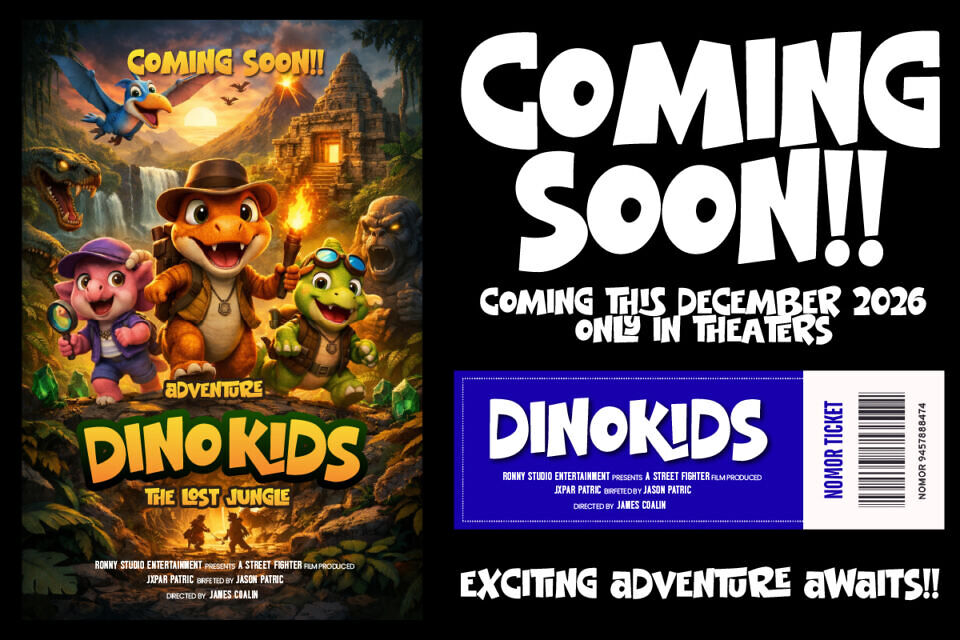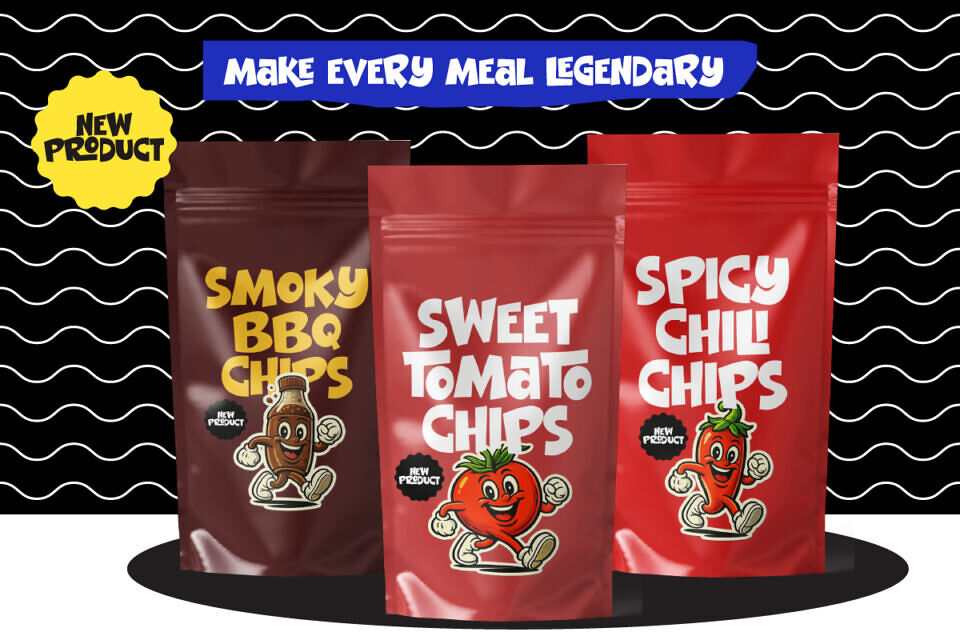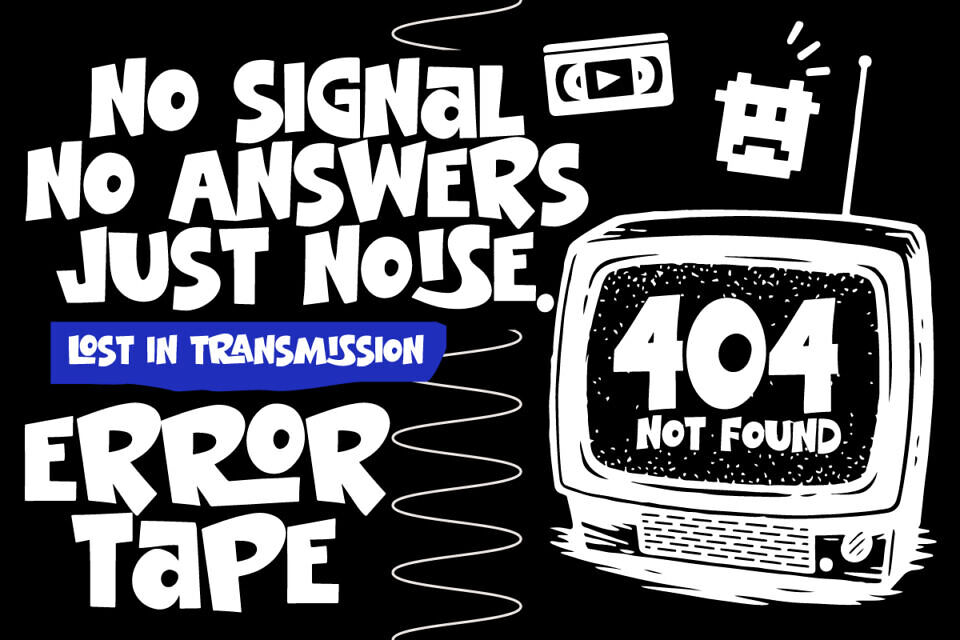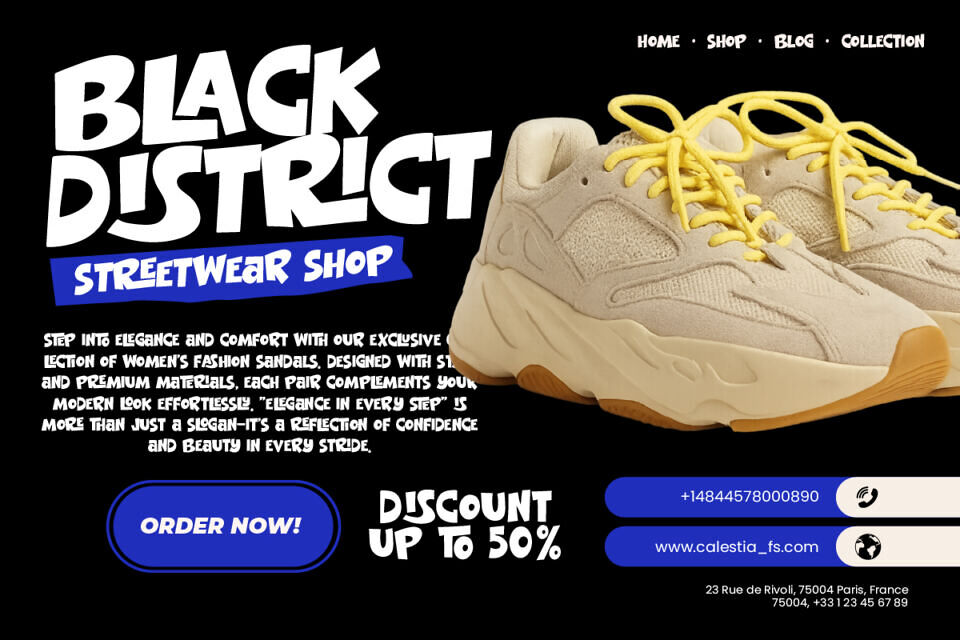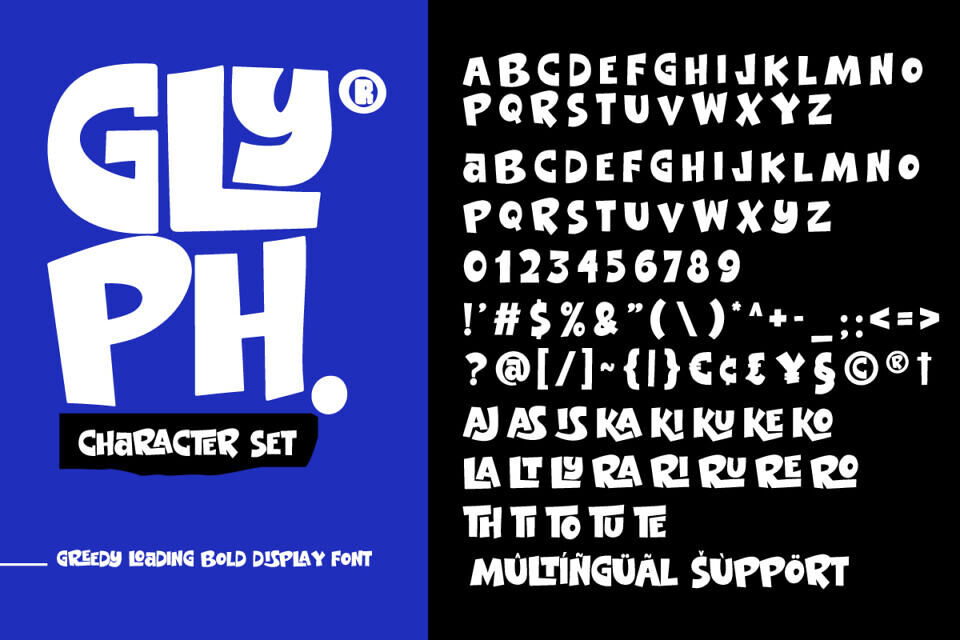
Greedy Louding Font
Greedy Loading is a bold display font with a chunky, playful, and energetic style. Designed to grab attention instantly, this font brings a fun yet strong personality to any design. Its thick and expressive letterforms create a modern street and retro-inspired feel, making it highly versatile for creative projects.